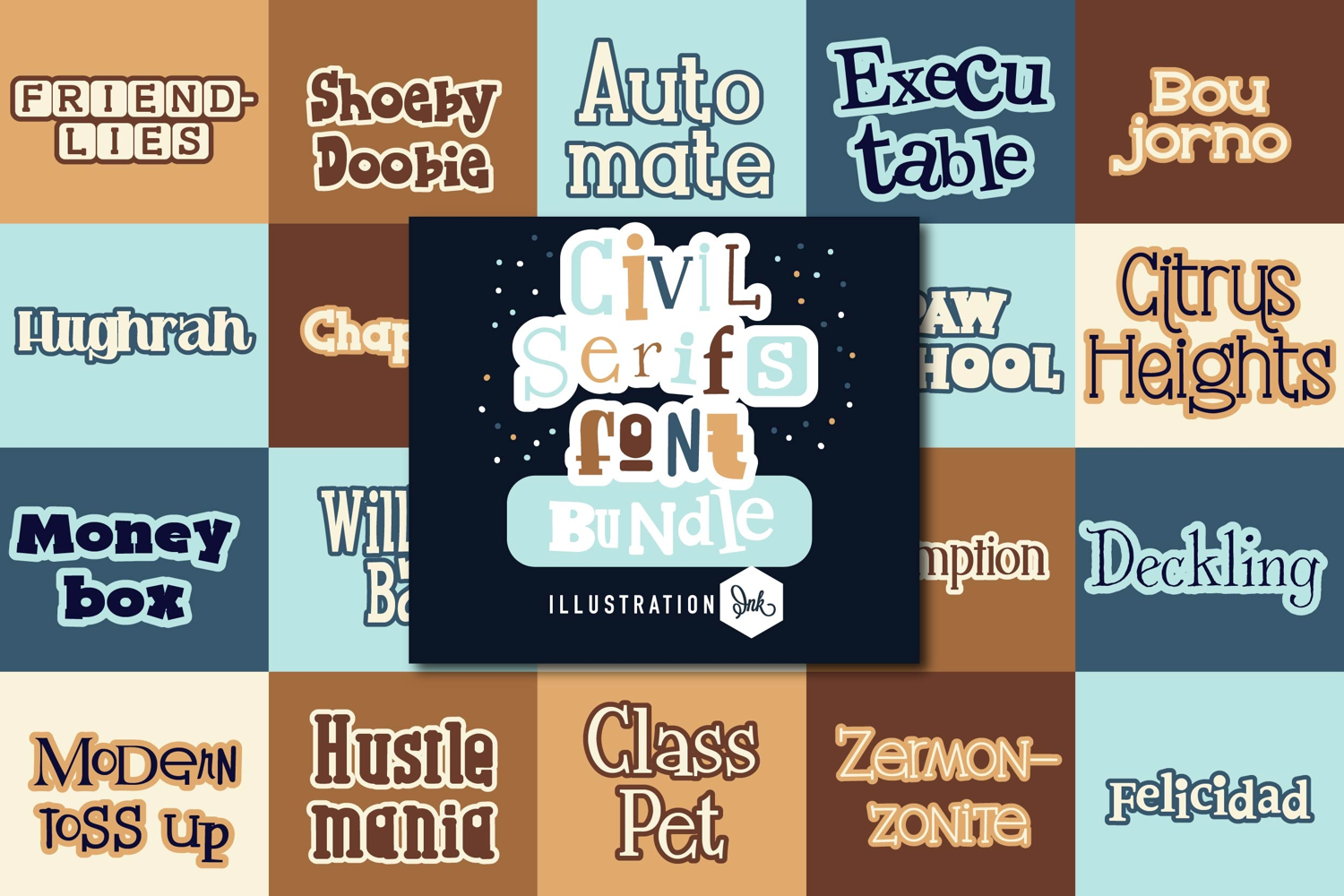
Civil Serifs Font Bundle
This hand-crafted font bundle contains 20 font families hand-crafted, serif fonts! Zip file contains both the .otf and .ttf fonts!
• The letters are not perfectly uniform in size or shape.
• There may be slight variations in the spacing between letters and words.
• The font may have a "wiggly" or "squiggly" appearance.
• The font may be difficult to read at small sizes.